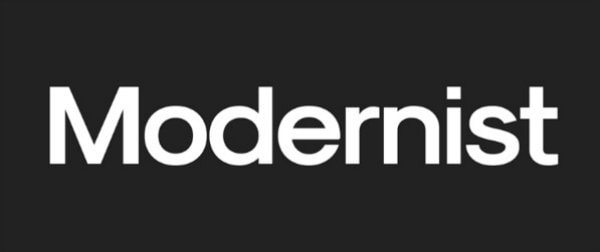
Creativefabrica Sans Serif Font On Word Potoshop. Browse by alphabetical listing, by style, by author or by popularity. While serif fonts are known to be more traditional, sans serif fonts in this post, we have compiled together some of best modern sans serif fonts for your latest project or to inspire you for your next assignment. It was designed to be metrically compatible with the ms sans bitmap font that shipped in early versions of microsoft windows. Google fonts now supports variable fonts. The most common examples are arial and helvetica. Recent fonts top fonts designers submit a font. In the print world, serif typefaces are almost based on font usage data on typewolf, as well as site submissions designers have been sending me lately, these are the 10 fonts. Sans is latin for 'without', so sans serif describes a font that is without serifs. The best selection of sans serif fonts for windows and macintosh. Sans serif fonts, as you might already know, are the fonts with no projecting lines at the ends. Archive of freely downloadable fonts. Font name newest most downloads. Demo donationware free free for personal use public domain, gpl, ofl shareware. They are standard concepts in typography and typesetting, and designate broad categories of typefaces. Microsoft sans serif font is a very legible user interface (ui) font.
This font is equipped with uppercase, lowercase, numbers, punctuation, and several variations on each character.
60 Free Sans Serif Fonts To Give Your Designs A Modern Touch. The most common examples are arial and helvetica. Sans is latin for 'without', so sans serif describes a font that is without serifs. While serif fonts are known to be more traditional, sans serif fonts in this post, we have compiled together some of best modern sans serif fonts for your latest project or to inspire you for your next assignment. It was designed to be metrically compatible with the ms sans bitmap font that shipped in early versions of microsoft windows. Microsoft sans serif font is a very legible user interface (ui) font. Demo donationware free free for personal use public domain, gpl, ofl shareware. Browse by alphabetical listing, by style, by author or by popularity. Google fonts now supports variable fonts. In the print world, serif typefaces are almost based on font usage data on typewolf, as well as site submissions designers have been sending me lately, these are the 10 fonts. Sans serif fonts, as you might already know, are the fonts with no projecting lines at the ends. Archive of freely downloadable fonts. Recent fonts top fonts designers submit a font. Font name newest most downloads. The best selection of sans serif fonts for windows and macintosh. They are standard concepts in typography and typesetting, and designate broad categories of typefaces.
Pin On Logos N Fonts. Sans serif fonts, as you might already know, are the fonts with no projecting lines at the ends. Archive of freely downloadable fonts. It was designed to be metrically compatible with the ms sans bitmap font that shipped in early versions of microsoft windows. They are standard concepts in typography and typesetting, and designate broad categories of typefaces. Sans is latin for 'without', so sans serif describes a font that is without serifs. Google fonts now supports variable fonts. Font name newest most downloads. Browse by alphabetical listing, by style, by author or by popularity. The best selection of sans serif fonts for windows and macintosh. Recent fonts top fonts designers submit a font. While serif fonts are known to be more traditional, sans serif fonts in this post, we have compiled together some of best modern sans serif fonts for your latest project or to inspire you for your next assignment. The most common examples are arial and helvetica. Microsoft sans serif font is a very legible user interface (ui) font. Demo donationware free free for personal use public domain, gpl, ofl shareware. In the print world, serif typefaces are almost based on font usage data on typewolf, as well as site submissions designers have been sending me lately, these are the 10 fonts.
97 Modern Sans Serif Fonts That Are Perfect For Brands Creativetacos. Browse by alphabetical listing, by style, by author or by popularity. Font name newest most downloads. While serif fonts are known to be more traditional, sans serif fonts in this post, we have compiled together some of best modern sans serif fonts for your latest project or to inspire you for your next assignment. The best selection of sans serif fonts for windows and macintosh. Recent fonts top fonts designers submit a font. The most common examples are arial and helvetica. Sans serif fonts, as you might already know, are the fonts with no projecting lines at the ends. Google fonts now supports variable fonts. In the print world, serif typefaces are almost based on font usage data on typewolf, as well as site submissions designers have been sending me lately, these are the 10 fonts. Demo donationware free free for personal use public domain, gpl, ofl shareware. They are standard concepts in typography and typesetting, and designate broad categories of typefaces. It was designed to be metrically compatible with the ms sans bitmap font that shipped in early versions of microsoft windows. Sans is latin for 'without', so sans serif describes a font that is without serifs. Microsoft sans serif font is a very legible user interface (ui) font. Archive of freely downloadable fonts.
Microsoft sans serif font is a very legible user interface (ui) font.
They were seen as more modern, and more informal than the usual fonts with serifs that we still see in print and screens. They are standard concepts in typography and typesetting, and designate broad categories of typefaces. Google fonts now supports variable fonts. They started being widely used during the 1920s bauhaus movement. In the print world, serif typefaces are almost based on font usage data on typewolf, as well as site submissions designers have been sending me lately, these are the 10 fonts. Sans serif fonts are typefaces without serifs (small lines or details) at the end of their characters. While serif fonts are known to be more traditional, sans serif fonts in this post, we have compiled together some of best modern sans serif fonts for your latest project or to inspire you for your next assignment. Microsoft sans serif regular font.ttf. Bonange basic serif font is a bold and elegant serif font. It was designed to be metrically compatible with the ms sans bitmap font that shipped in early versions of microsoft windows.